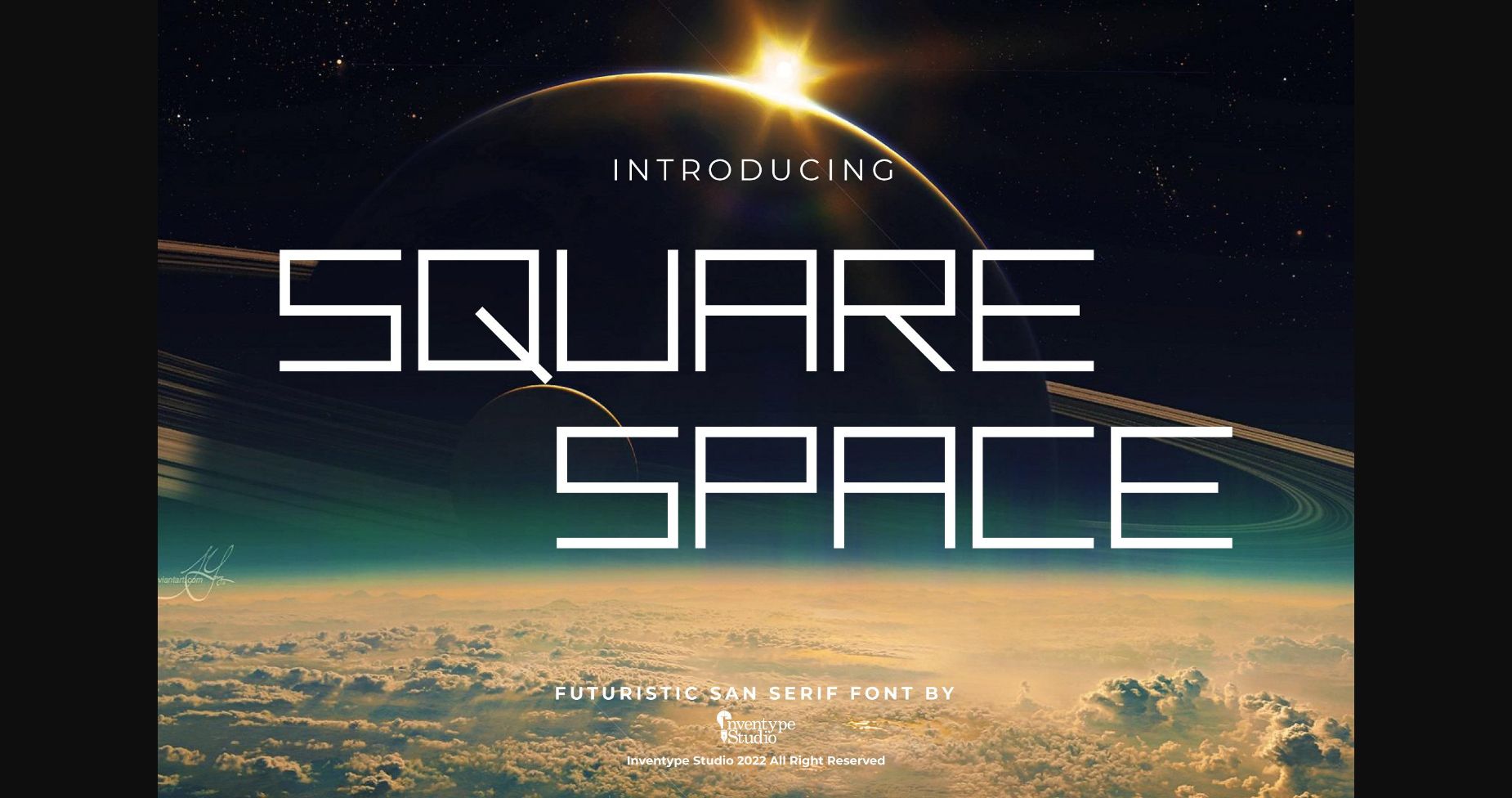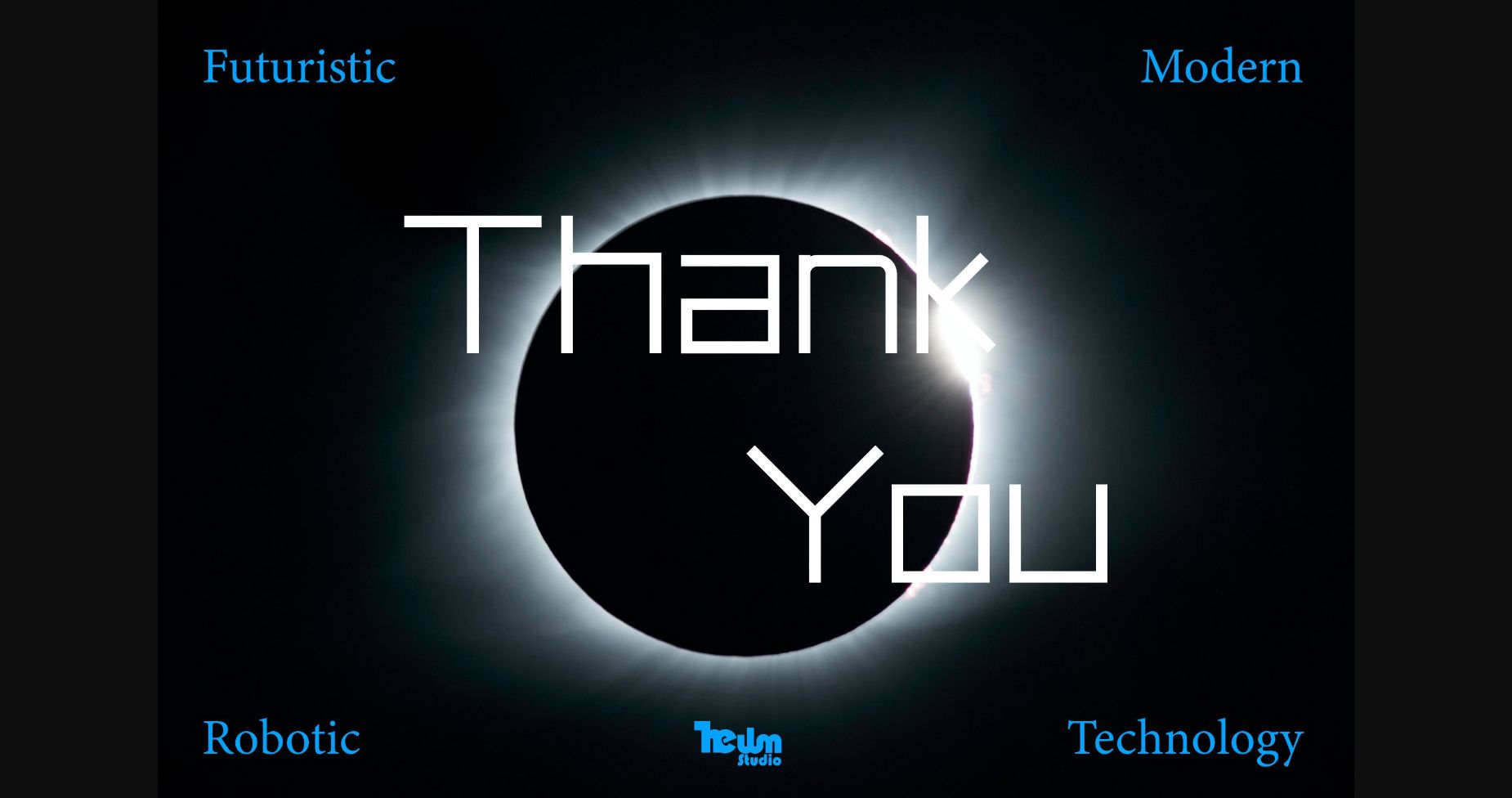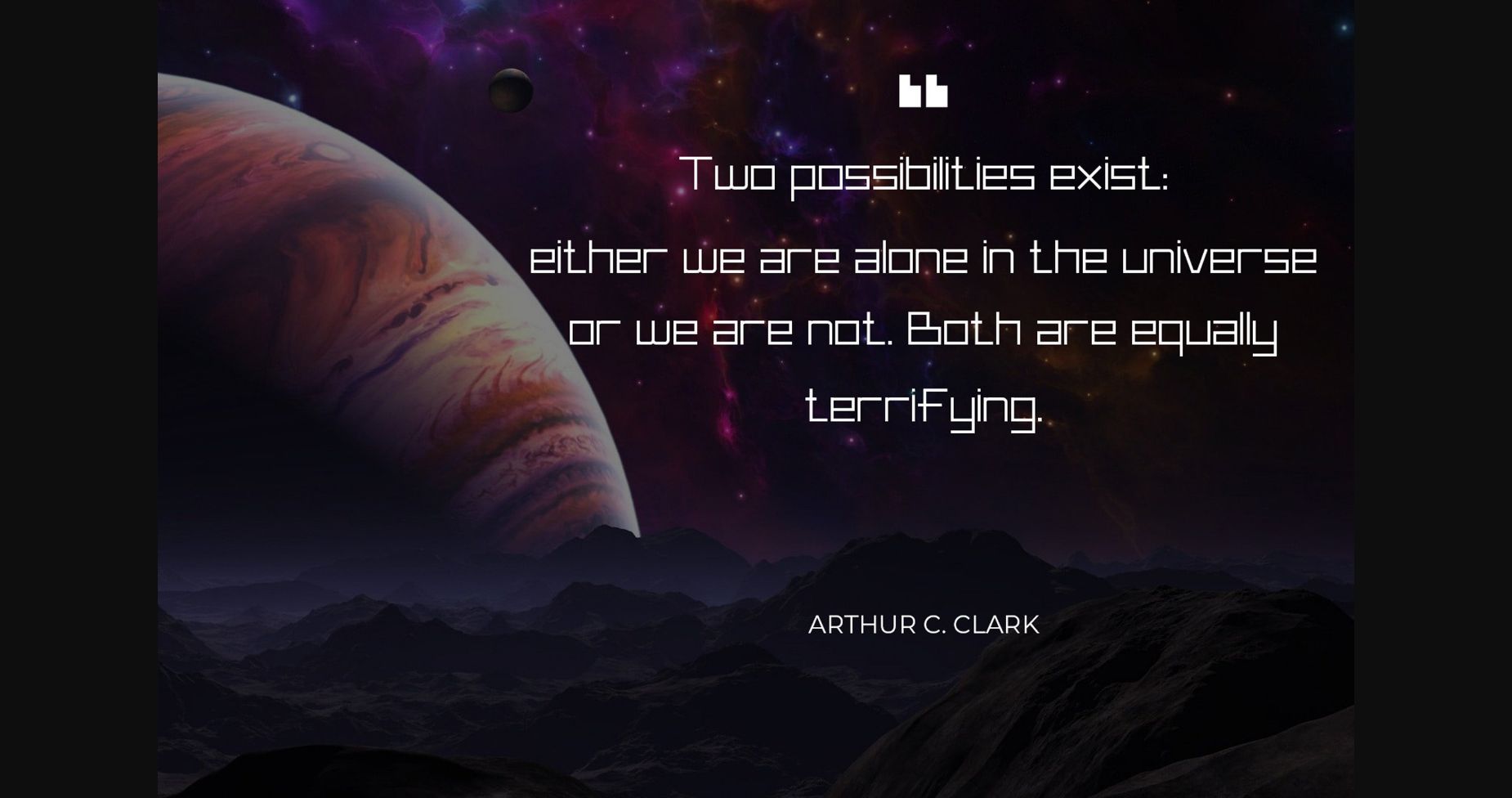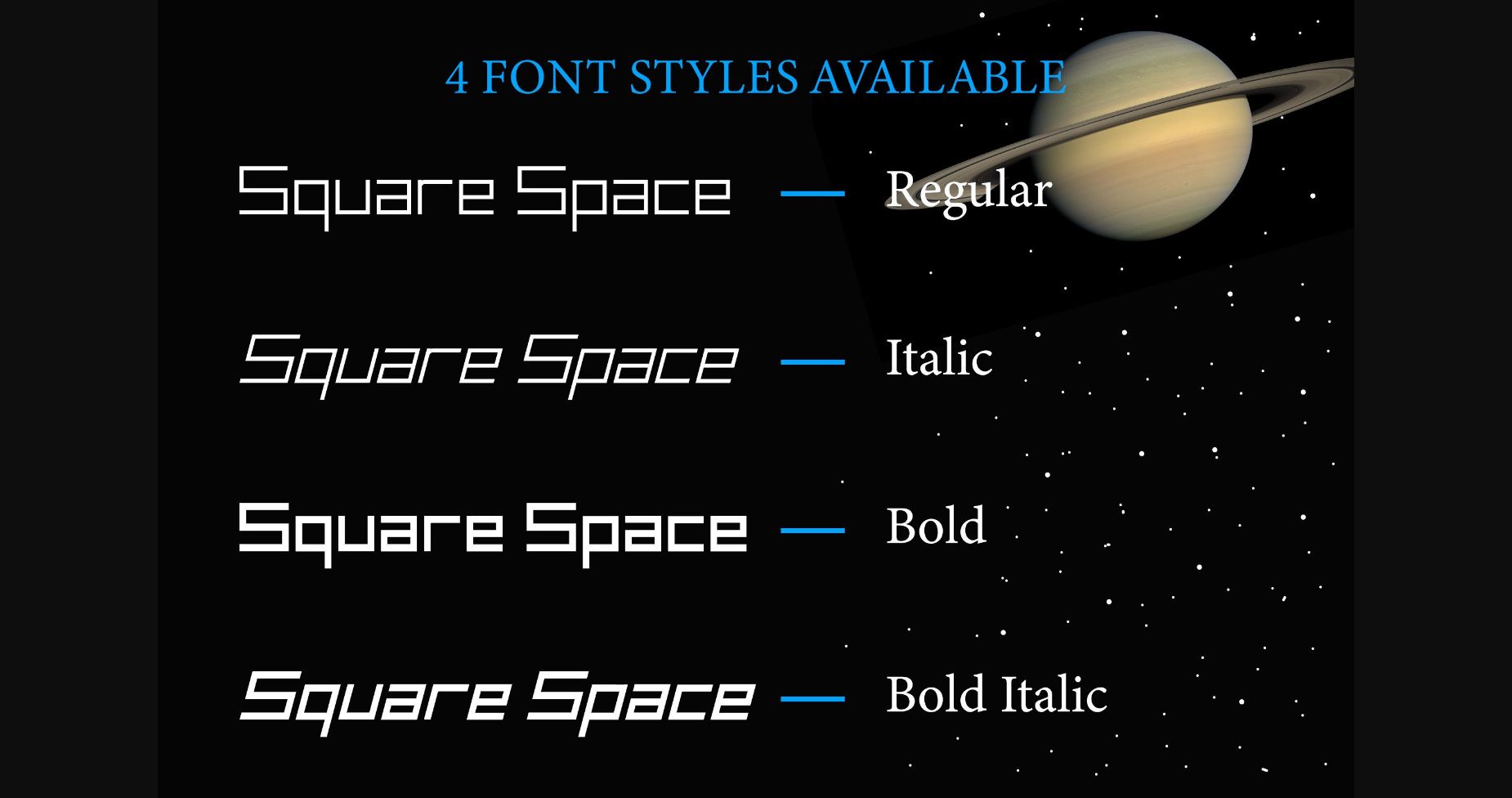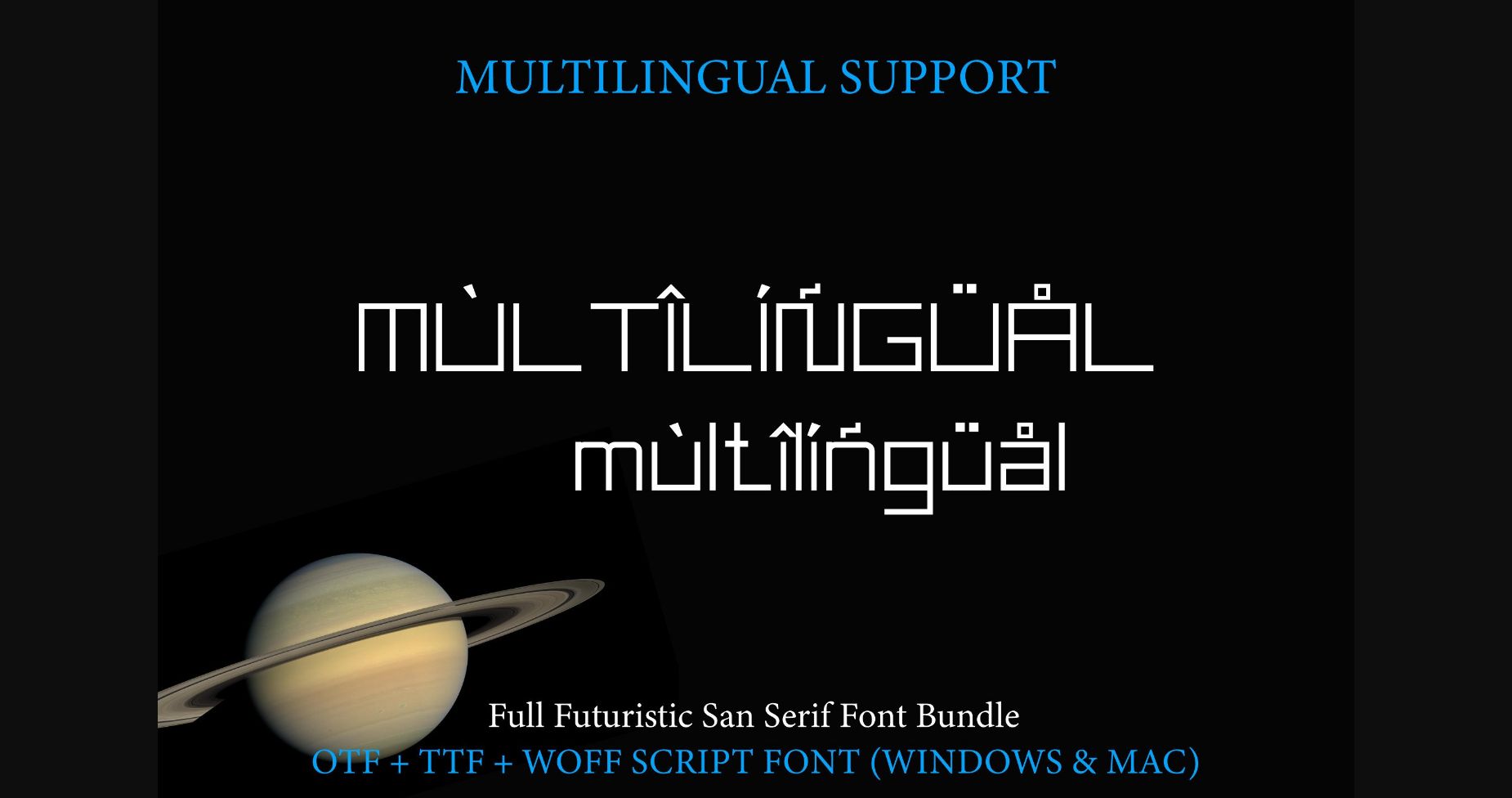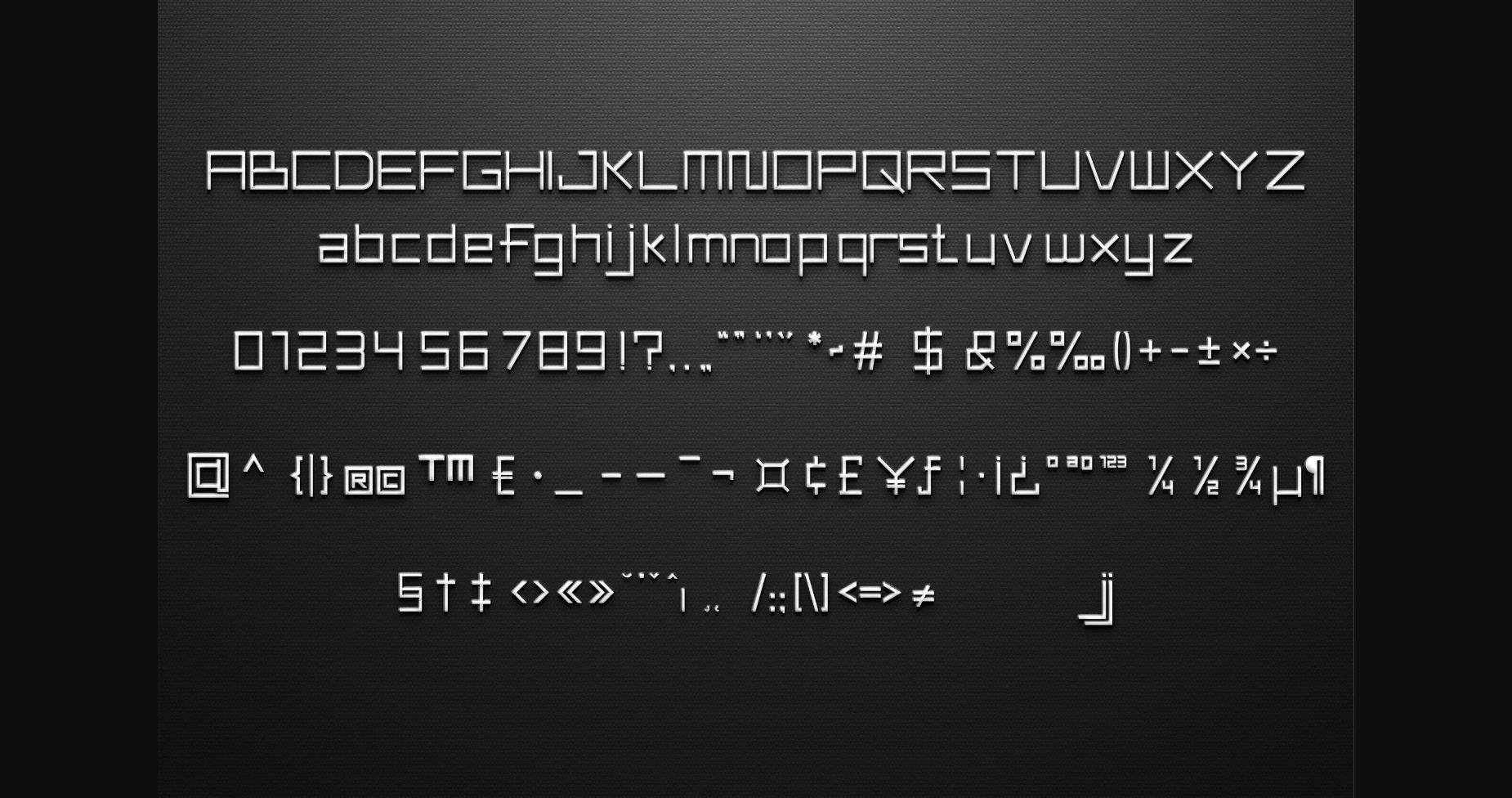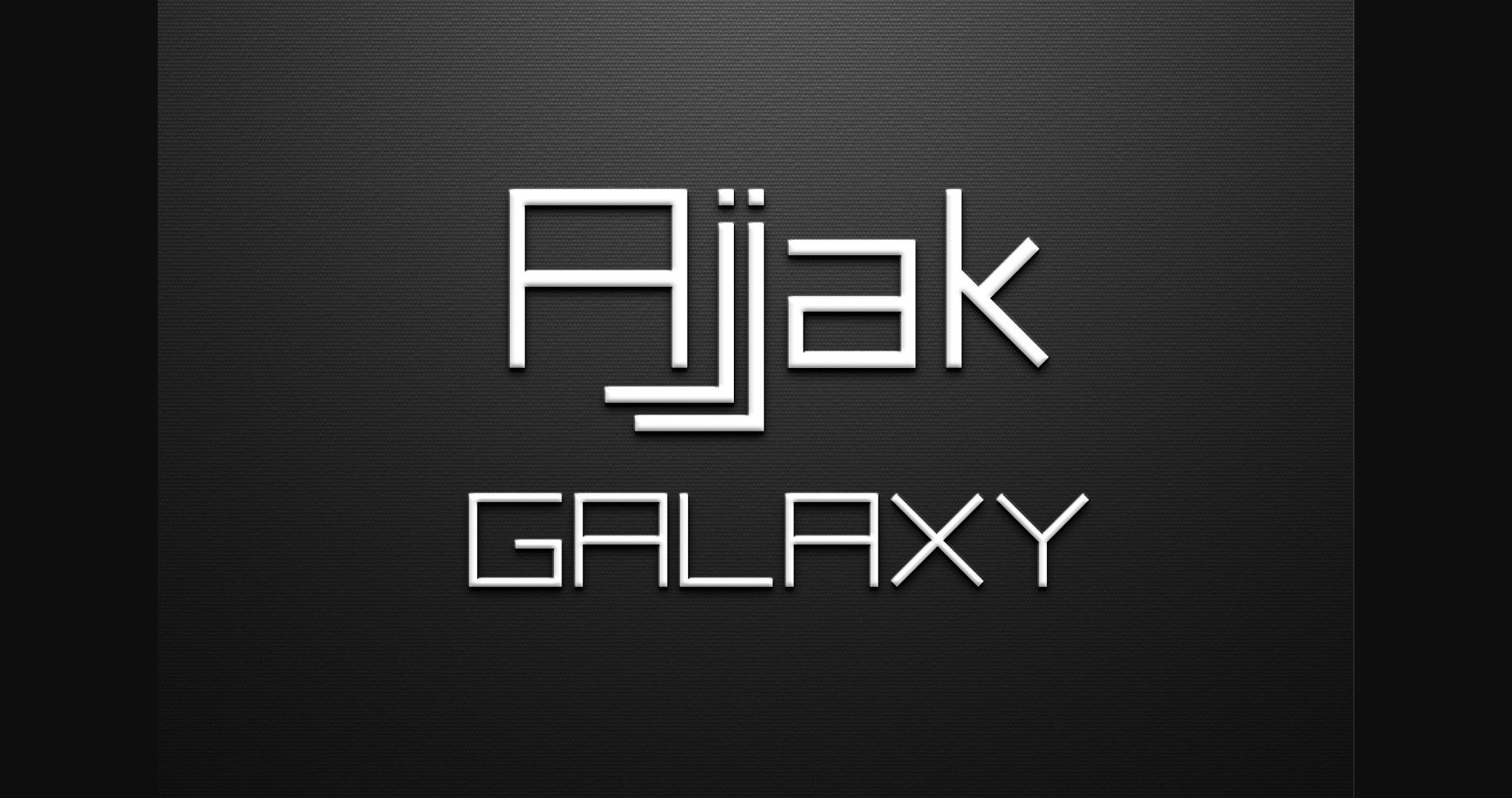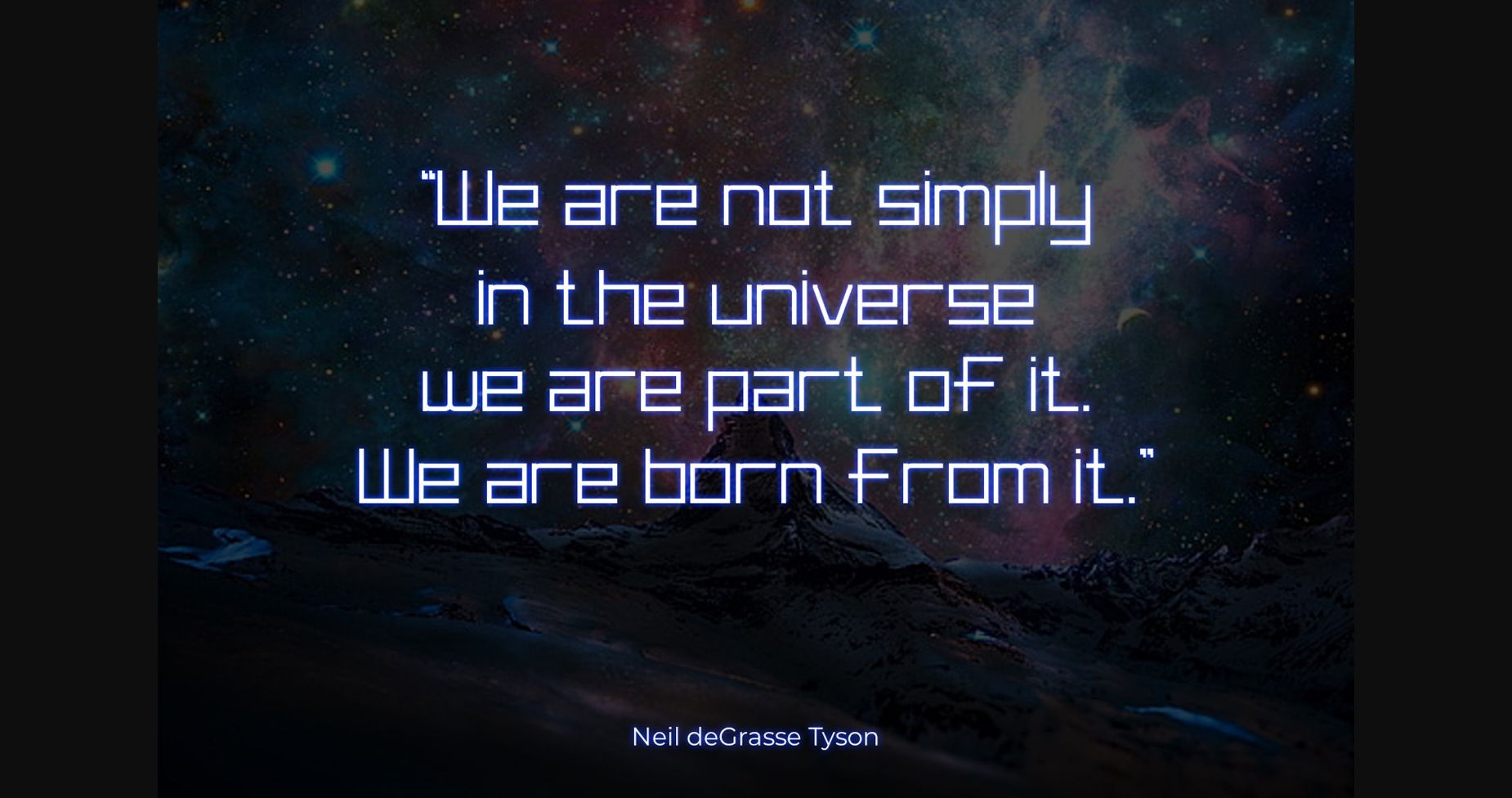
HomeSans Serif FontsSquare Space Font Sans Serif Fonts Square Space Font FacebookXPinterestWhatsApp 1 of 10 ... Square Space Font Poster 2... Square Space Font Poster 3... Square Space Font Poster 4... Square Space Font Poster 5... Square Space Font Poster 6... Square Space Font Poster 7... Square Space Font Poster 8... Square Space Font Poster 9... Square Space Font Poster 10... About Square Space Font Square Space is a modern font with a design that reflects the future. This font was inspired by today’s advanced technology. It will add a luxury spark to any design project that you wish to create! DOWNLOAD NOW People also explored Jelly Fox Font Sabiana Font Galathea Megan Qinthia Font Linimasa Font Holiday Valentine Font Sandy Shores Font Monstera Font Curly Millie Font 334 0 TagsSquare Space Font Previous articleRelaxii FontNext articleStapen Font LEAVE A REPLY Cancel reply Comment: Please enter your comment! Name:* Please enter your name here Email:* You have entered an incorrect email address! Please enter your email address here Website: Save my name, email, and website in this browser for the next time I comment. Personal Use Free Sarwendah Personal Use Free Read more about this font Cadosa Personal Use Free Read more about this font Kellana Personal Use Free Read more about this font Gratisan Personal Use Free Read more about this font BLOG How to Cut Any Font on Cricut: Convert a Font to SVG (Free) Turn any font into a clean SVG so it cuts crisp on Cricut - a quick 3-step workflow using a free font-to-SVG tool. Exploring Font Trends How to Install and Use Fonts on Windows, macOS, and Web Projects Where to Buy American Fonts Online in 2024